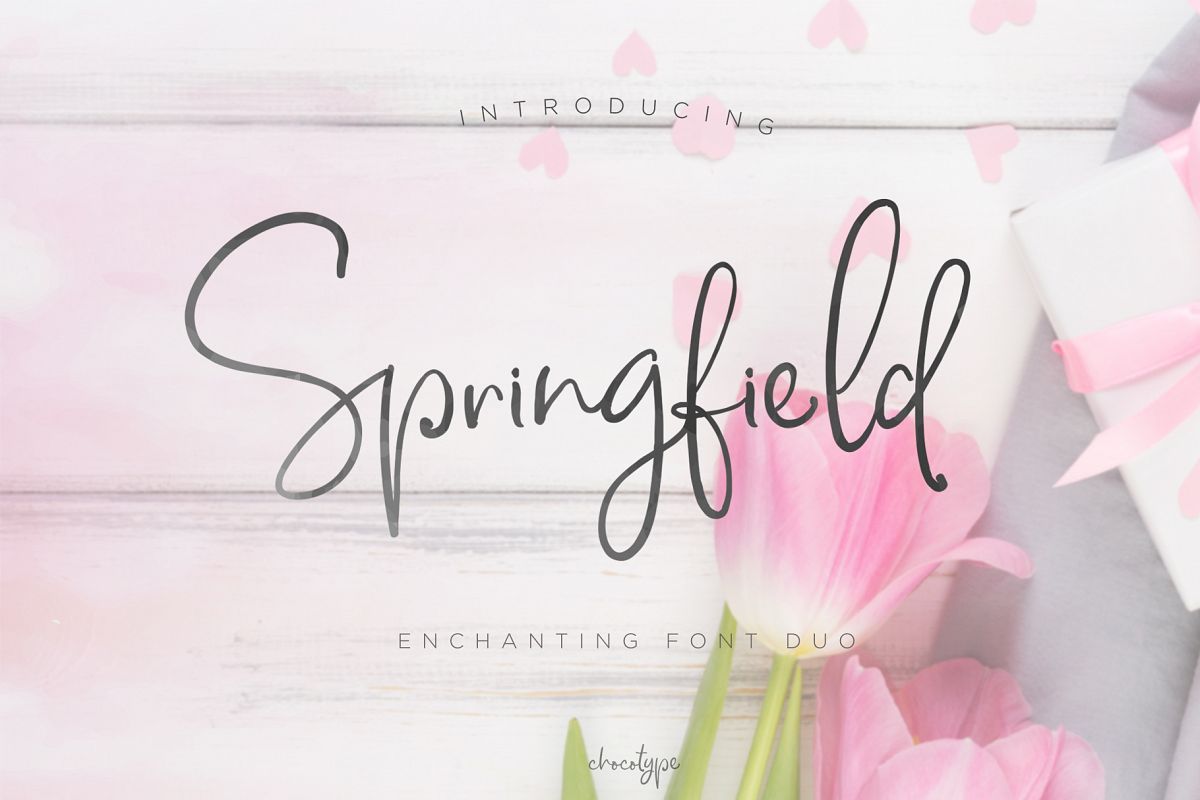
Springfield
SpringfieldSans
Springfield
Introducing Springfield! An echantedl font duo!Springfield is a handmade typeface, with cute character and a very bouncy baseline :).Springfield Script has a large variety of alternate characters ,allowing you to make each word look completely unique to the next! Ligatures are also included. It has multilingual support with accented characters for international users.For you who have opentype capable software : The alternates are accessible by turning on 'Stylistic Alternates' and 'Ligatures' buttons on in Photoshop's Character panel, or via any software with a glyphs panel, e.g. Adobe Illustrator, Photoshop CC, Inkscape.For those who would prefer,I've included a set of corresponding TTF files.WHATS INCLUDED :
Springfield